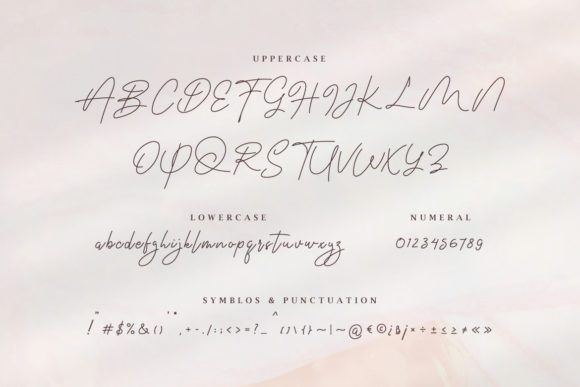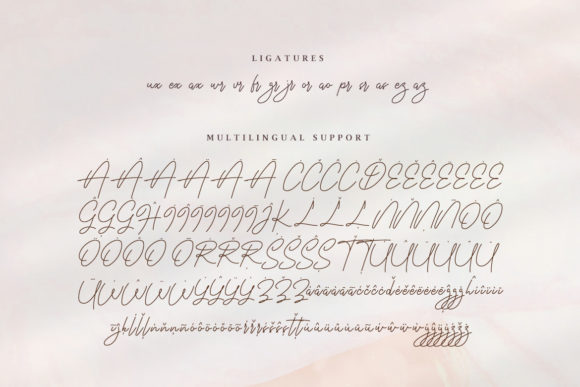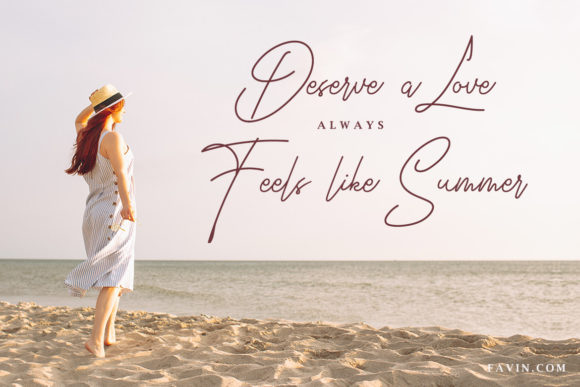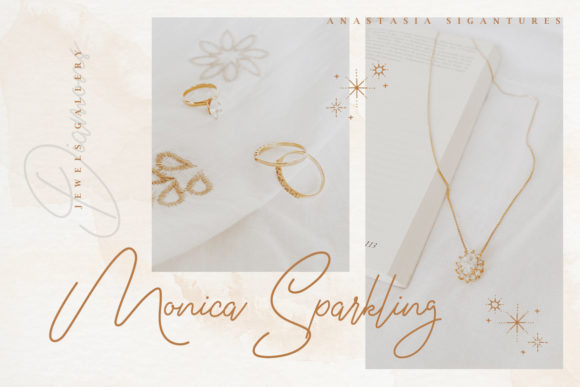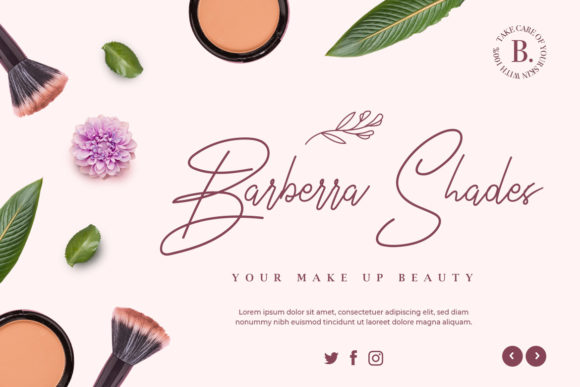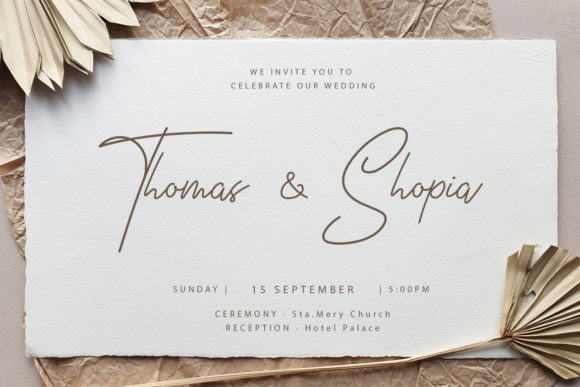
The Perfect Script Font for Your Next Creative Project
You’ve spent hours pouring over design inspiration, and finally, you’ve landed on the perfect idea for your next project. Whether it’s a wedding invitation, a beautiful piece of stationary art, or an eye-catching social media post, you know exactly what you want it to look like. But, the one thing that’s missing is the perfect font – something that will bring your vision to life and leave a lasting impression.
Enter the Anastasia Signature Font, a thin lettered and graceful script font that’s sure to captivate your audience. With its ravishing style, this font is perfect for designers who want to add a touch of elegance and sophistication to their work. Whether you’re a seasoned pro or just starting out, the Anastasia Signature Font is a valuable tool that will help you create stunning designs that will set you apart from the rest.
Anastasia Signature Font Key Features
- Font Family: Anastasia, a high-end, elegant script font
- Unique Characteristics: Hand-drawn, cursive script with a touch of sophistication and elegance, ideal for invitations, wedding stationery, and luxury branding
- Character Set: Supports a wide range of languages, including Latin, Cyrillic, and Greek
Anastasia Signature Font Review
As a designer, I’m always on the lookout for unique and stylish fonts to elevate my projects. The Anastasia Signature Font caught my eye with its elegant, vintage flair, and I was excited to dive in and explore its features. Here’s my honest review.
- The font’s classic, sophisticated feel is perfect for high-end branding and design projects.
- The Anastasia Signature Font is highly customizable, with a range of weights, styles, and formatting options.
- The font’s ligatures and connections add a touch of elegance and sophistication to text.
- The font may be too ornate for some designs, and could potentially overwhelm the layout.
- The font’s vintage feel may not be suitable for modern or minimalist projects.
- The font requires a decent amount of space to breathe, so it may not be ideal for tight layouts.
The Anastasia Signature Font is a beautiful, high-end font that’s perfect for projects that require a touch of elegance and sophistication. While it may have some limitations, I believe it’s a valuable addition to any designer’s toolkit. With its high level of customization and unique features, I’d definitely recommend it to designers looking to elevate their projects.
Anastasia Signature Font Practical Application Guide
The Anastasia Signature Font is ideal for creating elegant and sophisticated designs. Common use cases include:
- Editorial and literary publications
For best results, use the Anastasia Signature Font in conjunction with high-quality images and graphics.
Alternatives to Anastasia Signature Font
Great Vibes is a beautiful, elegant script font that’s perfect for creating a luxurious and sophisticated look. It’s ideal for wedding invitations, branding, and packaging. When to use: luxury, high-end, elegant.
Compared to Anastasia Signature Font, Great Vibes has a more refined and classic look. While Anastasia has a more whimsical feel, Great Vibes exudes a sense of sophistication and glamour.
Literata
Literata is a stunning, modern script font that’s perfect for creating a sense of drama and luxury. It’s ideal for fashion, beauty, and lifestyle brands. When to use: fashion, beauty, luxury.
Compared to Anastasia Signature Font, Literata has a more modern and edgy feel. While Anastasia has a more vintage and romantic look, Literata is perfect for brands that want to make a bold statement.
Q: Are there any specific font size or resolution limitations for Anastasia Signature Font?
The Anastasia Signature Font is optimized for use at font sizes between 8pt and 72pt. For optimal results, use the font at sizes within this range. Additionally, the font is designed for use at standard resolutions (72 dpi or 96 dpi). Using the font at extremely high or low resolutions may affect its appearance and readability.